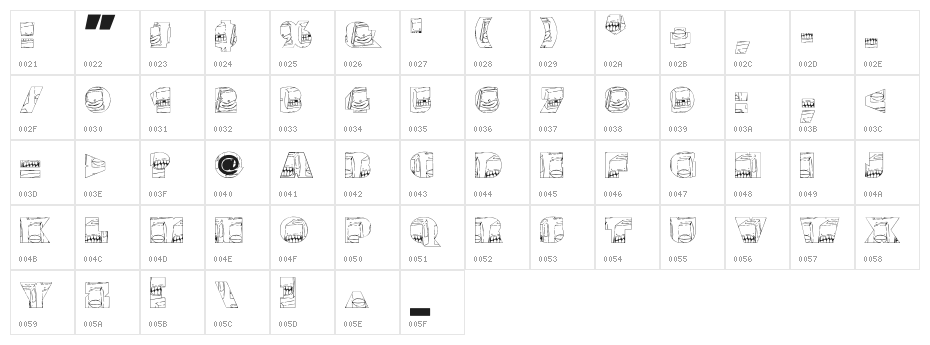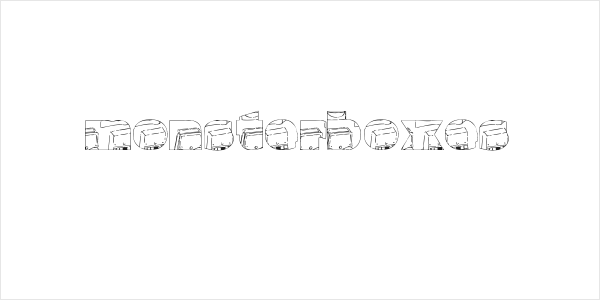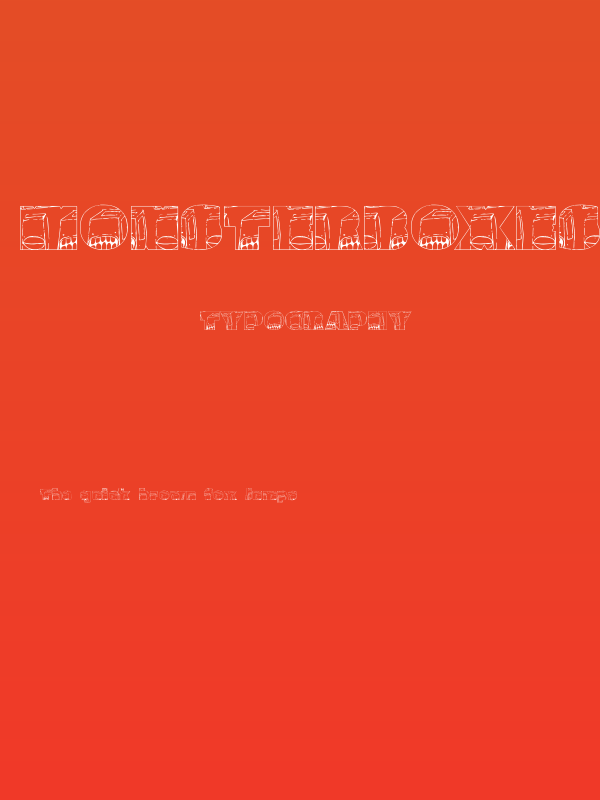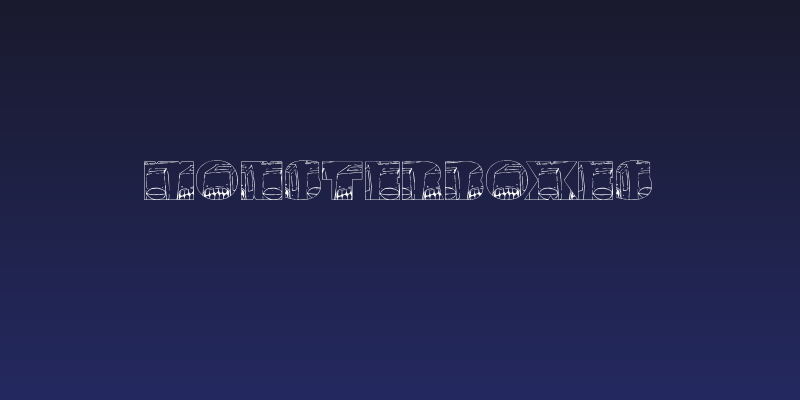
monsterboxes Font
monsterboxes Description
This playful and imaginative font features letters that are creatively designed to resemble cartoonish monster faces. Each character is uniquely crafted with intricate details, including eyes, teeth, and expressive features, giving the font a whimsical and humorous appearance. The design is highly decorative, making it stand out with its bold and artistic style. The font's intricate line work and character-filled design make it ideal for projects that require a fun and engaging visual element. Its unique style is perfect for capturing attention and adding a touch of creativity to any design.
| Use Case | Logos, Posters, Creative Titles |
| Proposed Projects | Ideal for children's books, Halloween-themed events, playful branding, and creative posters. |